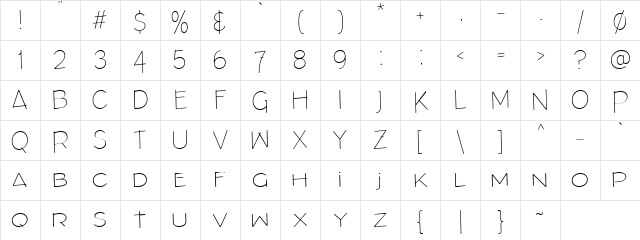
Architects Draft Regular
Foundry: Michael Hassler
Designer: Michael Hassler
Design Context for Architects Draft
Architects Draft is a composed and adaptable typeface that performs quietly and consistently across a wide range of design contexts.